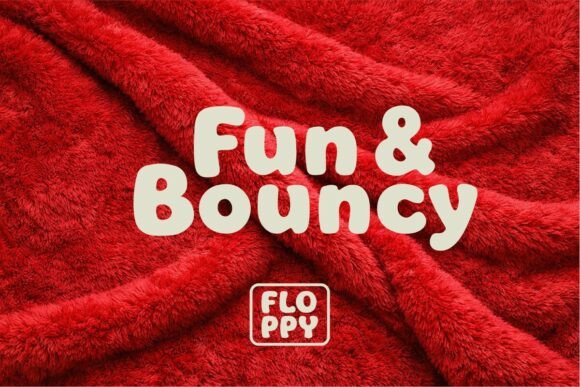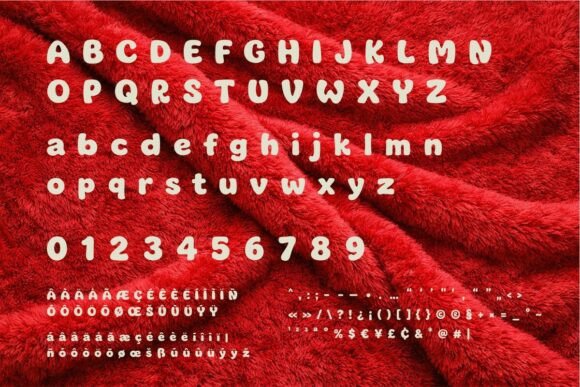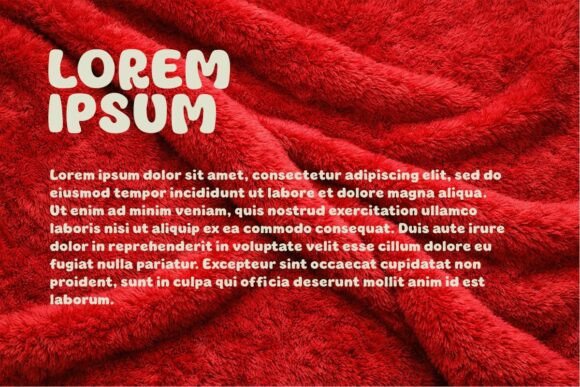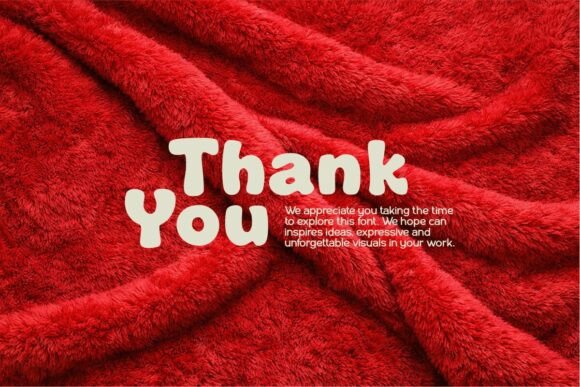
Introduction to Floppy Font
Meet FLOPPY – The Ultimate Playful Cartoon Display Font Inject a massive dose of fun, energy, and nostalgia into your creative projects with FLOPPY, a bold and bouncy cartoon display font.
Designed with soft, rounded edges and a cheerful personality, this typeface mimics the carefree, retro vibe of classic animation and modern bubble typography Whether you are working on children’s book illustrations, quirky merchandise, or eye-catching social media graphics, FLOPPY stands out with its unique, chunky letterforms that scream personality.